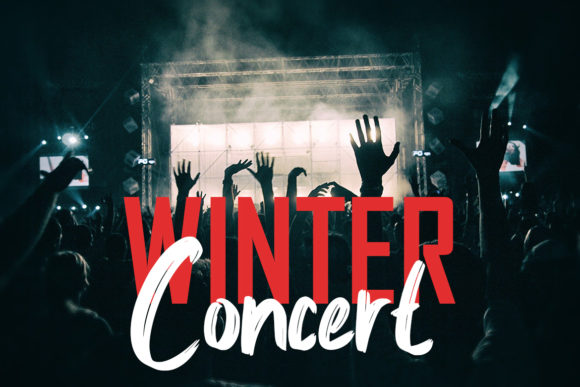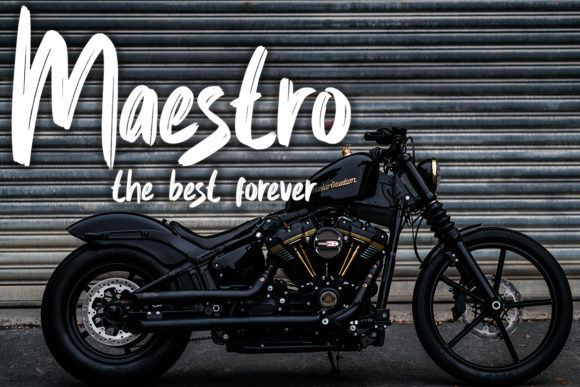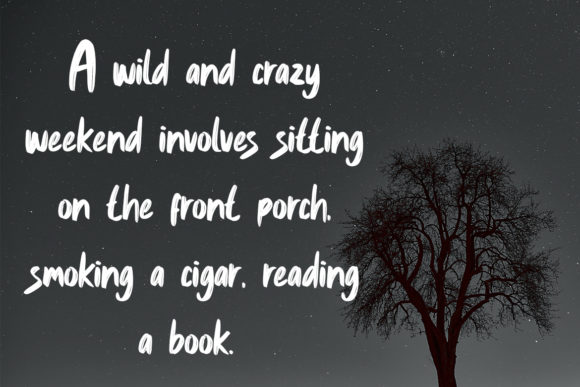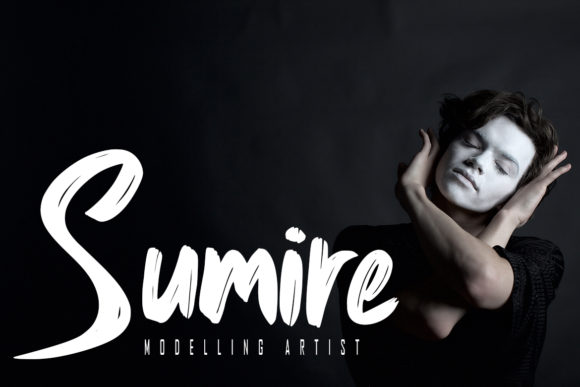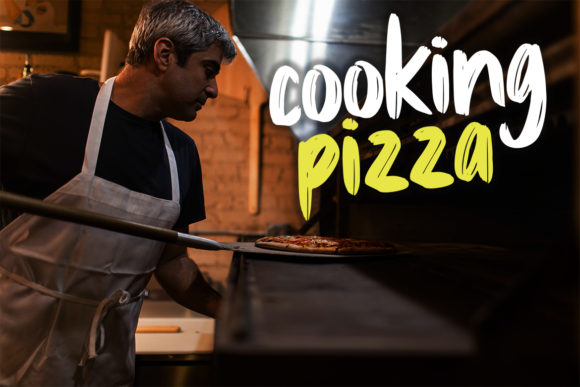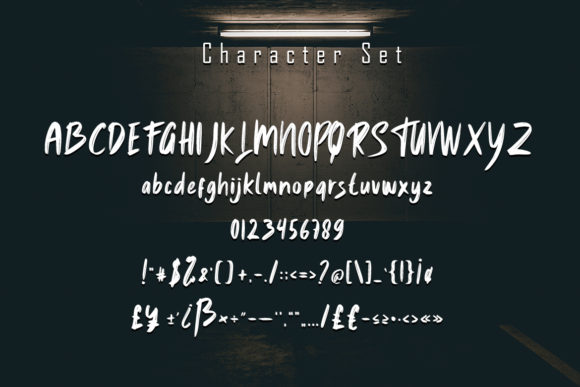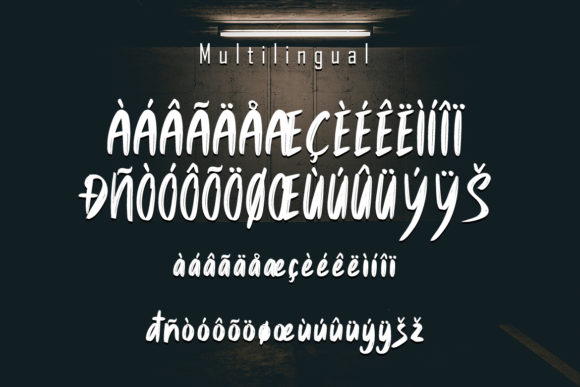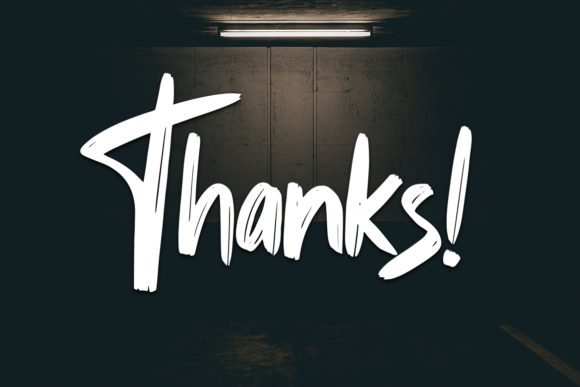
Daylike Font
About Daylike Font
Daylike is a bold yet friendly handwritten font. Add this beautiful font to each of your creative ideas and notice how it makes them stand out!